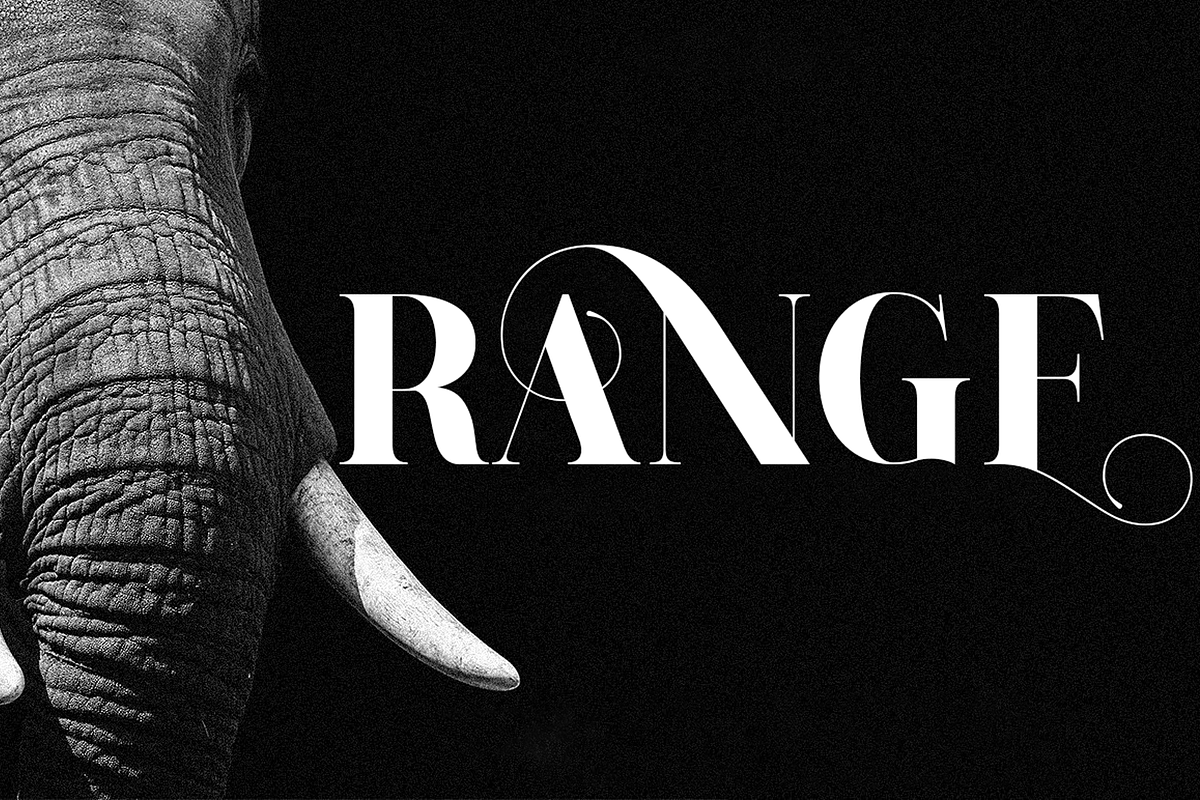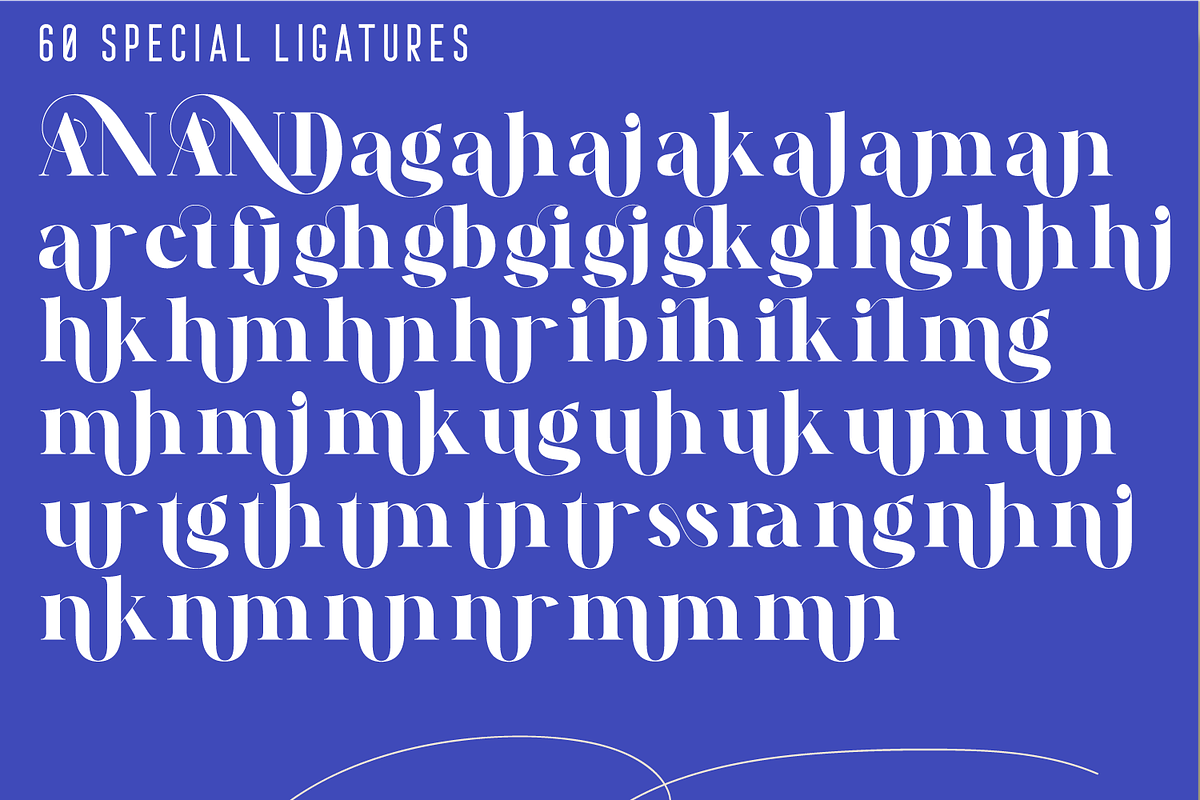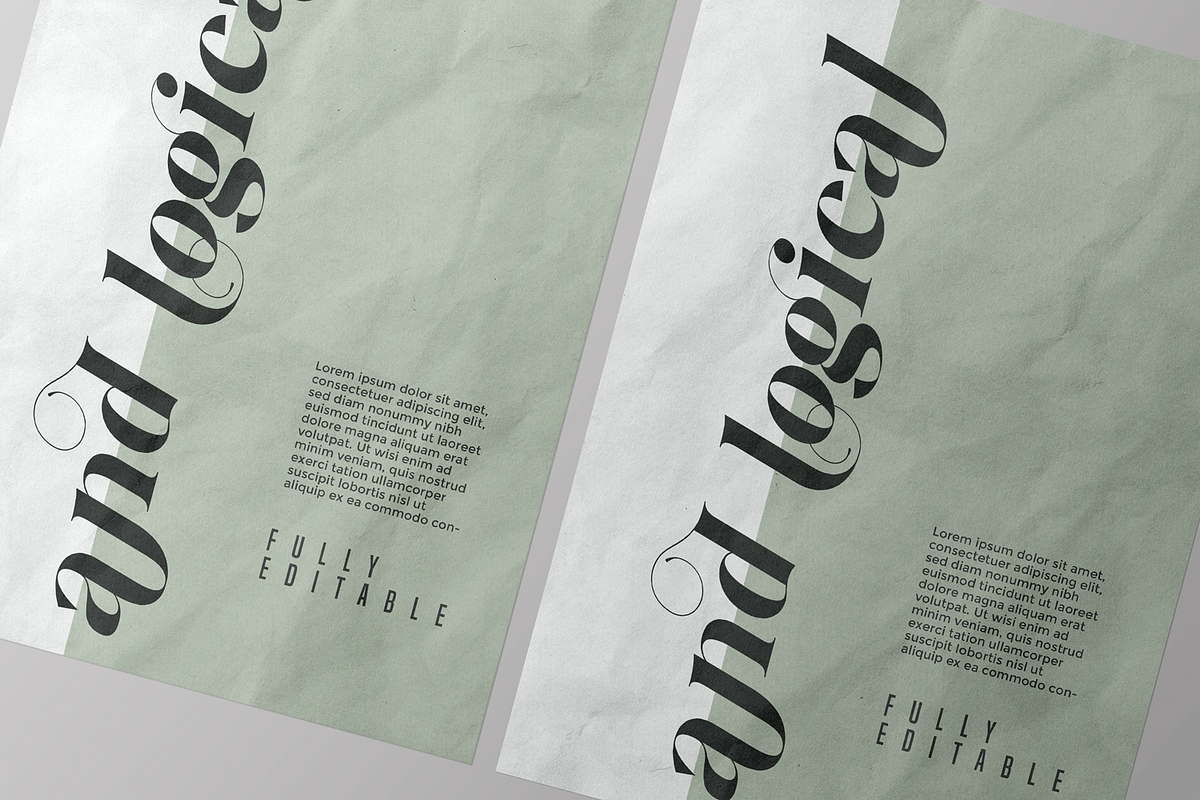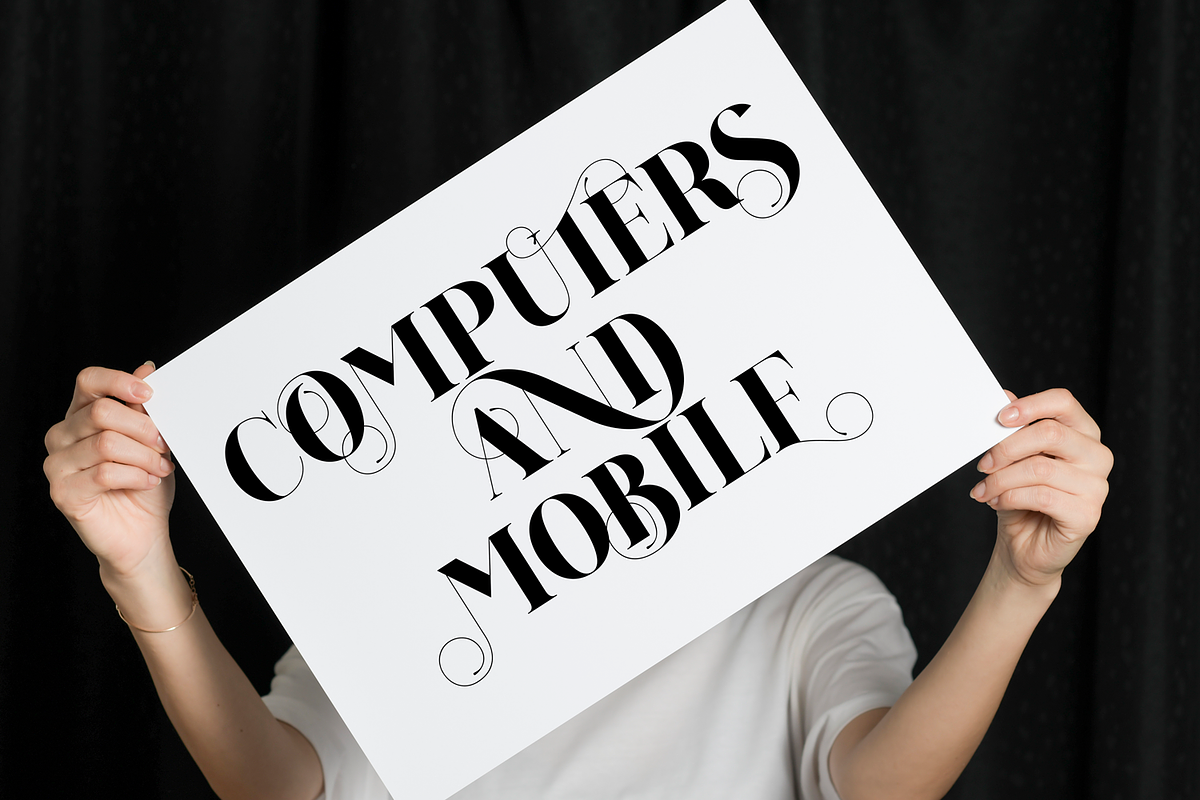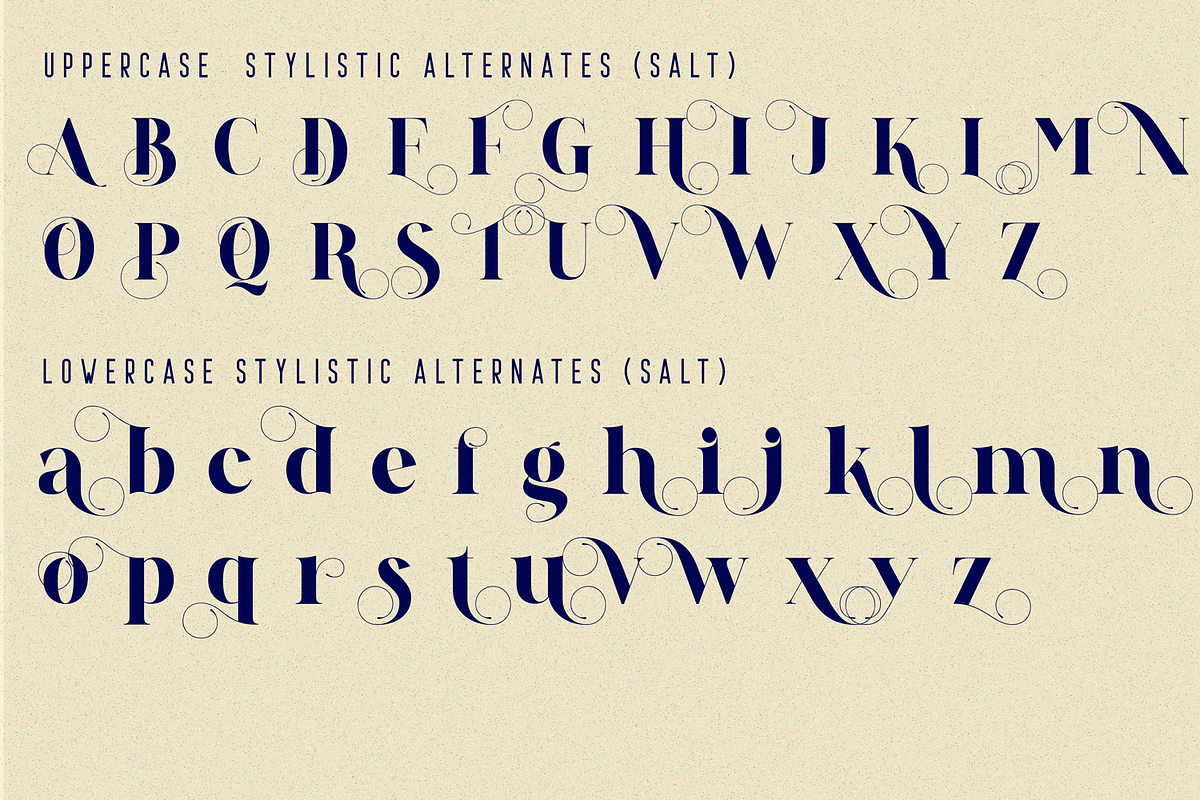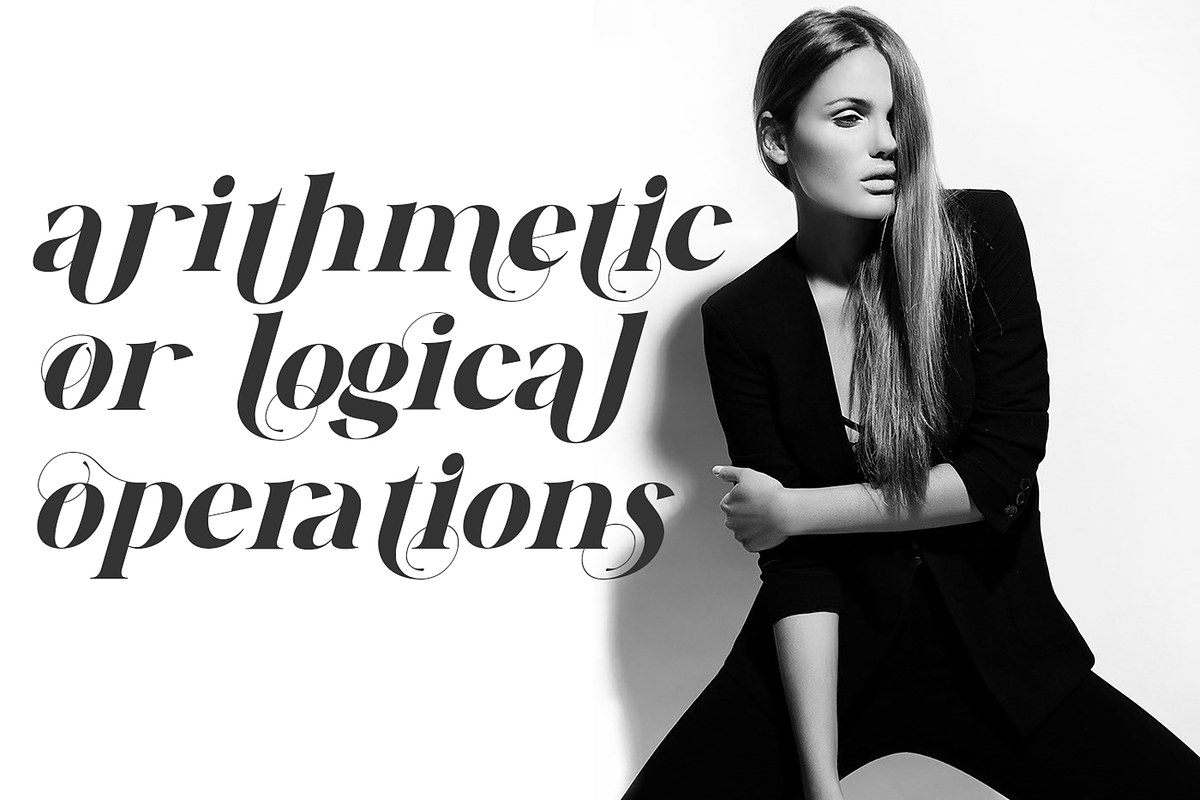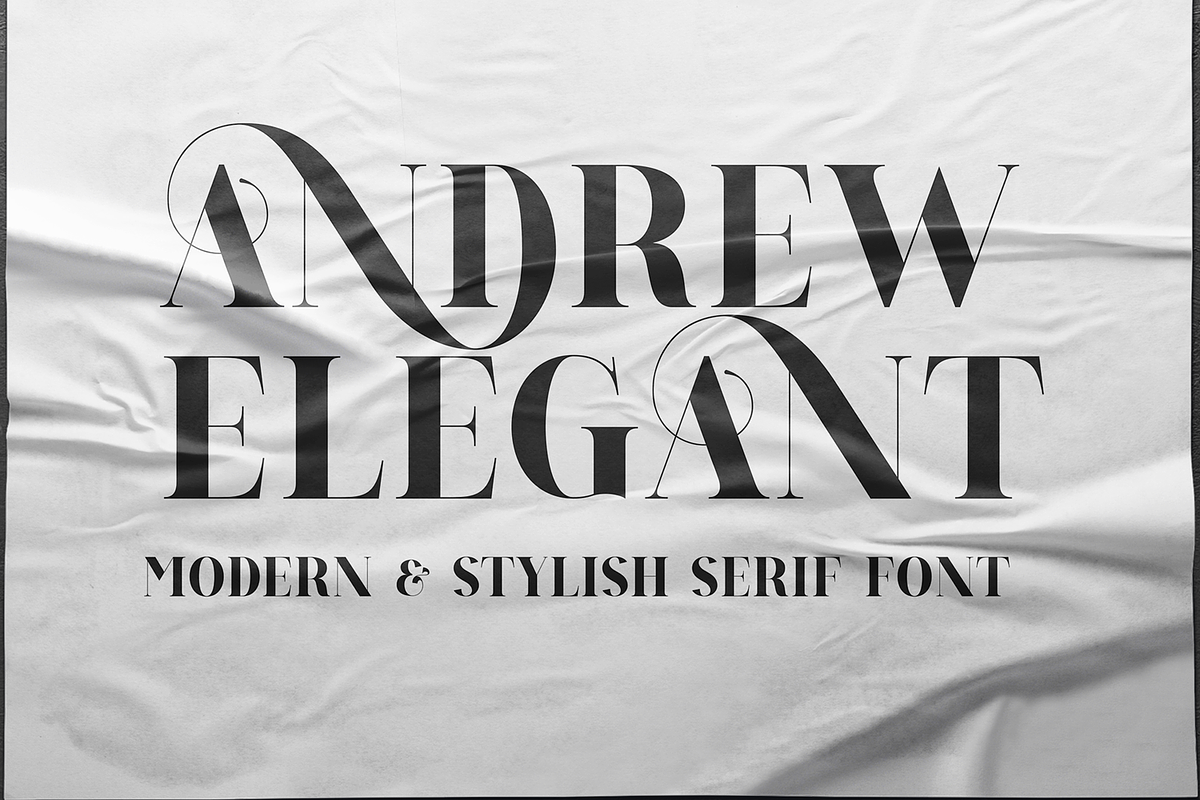
ANDREW ELEGANT Font
ANDREW ELEGANT Font is a modern vintage beauty font. A new ligature serif font with lots of alternative that will bring your projects a touch of classic and modern style. Recomended for logotypes, branding, wedding monograms and invitations, blog headlines and much more. Flip through all the previews and get inspired like I was while creating this font.
To make it look more unique, here we prepared some ligatures:
AN AND ag ah aj ak al am an ar ct fj gh gb gi gj gk gl hg hh hj hk hm hn hr ib ih ik il mg mh mi mk ug uh uk um un ur tg th tm tn tr ss ra ng nh ni nk nm nn nr mm mn
Include Fancy Style on Every Uppercase and Some Lowercase
ANDREW ELEGANT is also included full set of:
- Special Ligatures